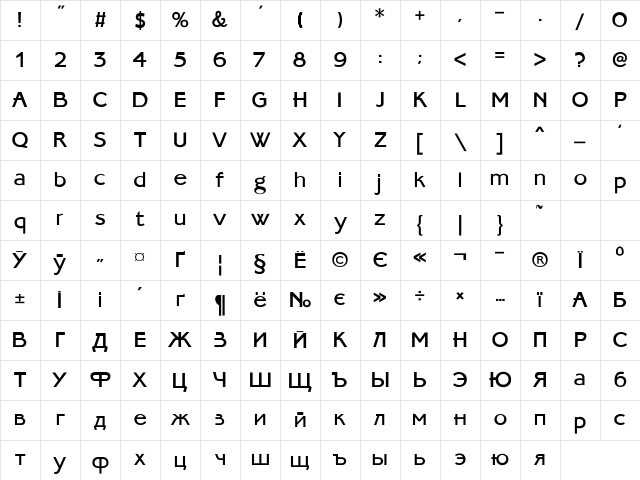
AmbassadoreType Regular Free Font
AmbassadoreType Regular
Design Context for AmbassadoreType
AmbassadoreType is a composed and adaptable typeface that performs quietly and consistently across a wide range of design contexts.
Pro Tip: Use AmbassadoreType in both headline and body roles to test its range before committing to a single application.